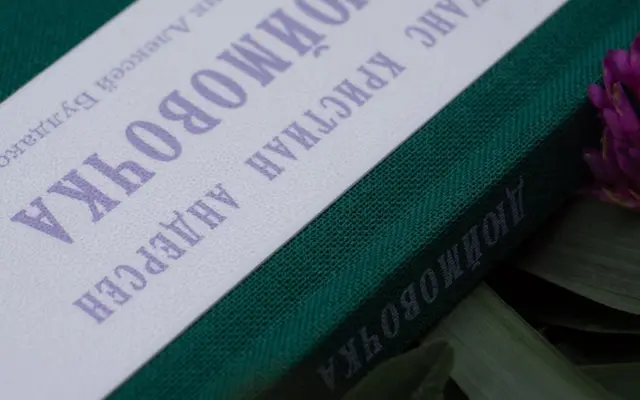
Nolde
Brownfox · Alexey Buldakov
A two-weight display serif with a companion Outline cut, covering Latin and Cyrillic across 72 languages.
Nolde is a display serif available in Regular and Outline weights, designed for use at large sizes in editorial, exhibition and poster contexts. The Outline variant extends its range for layered or high-contrast typographic applications. Latin and Cyrillic support spans 72 languages, making it broadly usable across Eastern and Western European markets.
Nolde offers a Regular and an Outline weight, with letterforms suited to large display sizes; the expressive stroke contrast and named Outline variant point firmly toward display use rather than text setting.